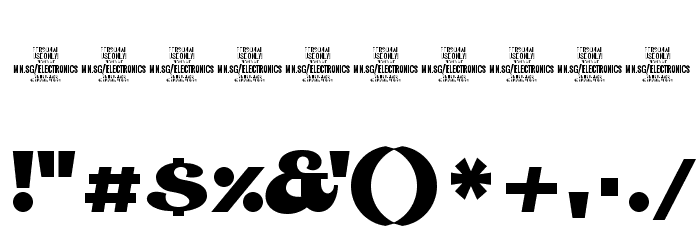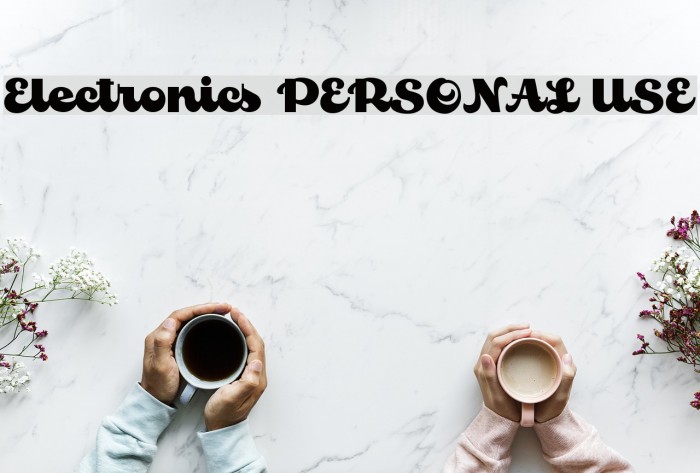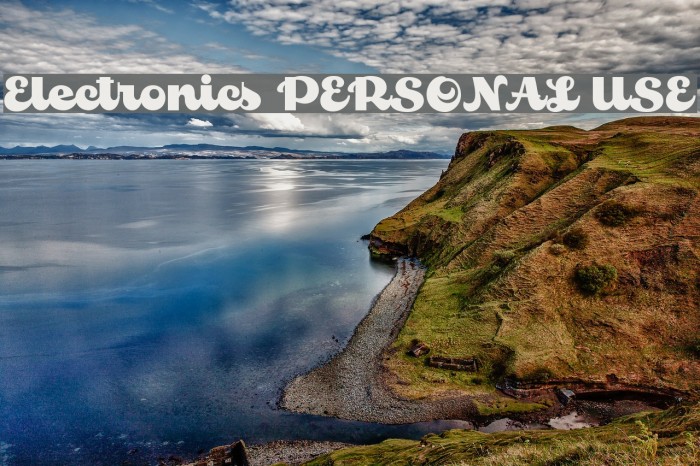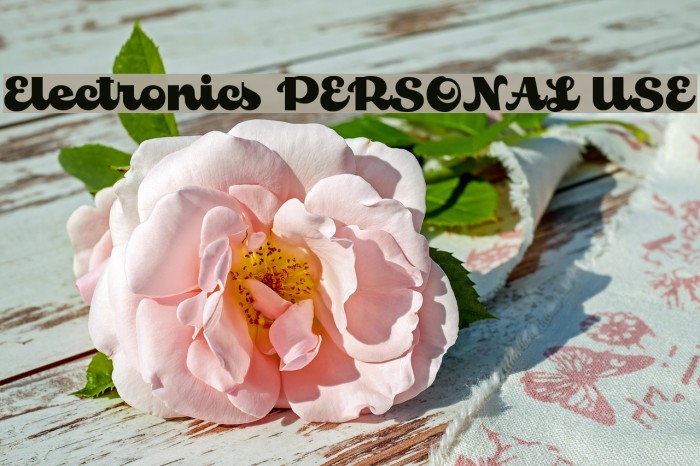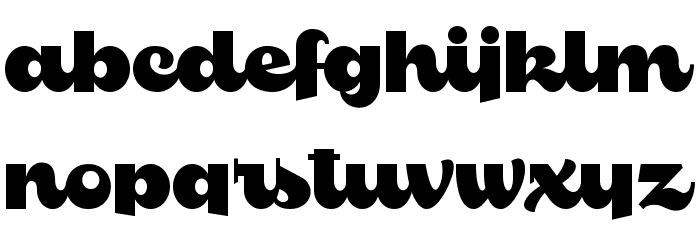
Electronics PERSONAL USE Font
Electronics PERSONAL USE Description
This font features a bold and playful design with a distinct retro flair. The uppercase and lowercase letters are characterized by thick, rounded strokes and exaggerated curves, creating a sense of movement and energy. The font has a whimsical and decorative style, making it ideal for projects that require a touch of fun and creativity. The numbers and special characters maintain the same bold and dynamic aesthetic, ensuring consistency across all text elements. The overall appearance is both eye-catching and memorable, suitable for a variety of creative applications.
A bold, playful font with a retro flair and exaggerated curves from Old fashioned fonts.
- Proposed Projects: Ideal for posters, logos, children's books, and creative branding projects.
- Overall Style: Retro, Playful